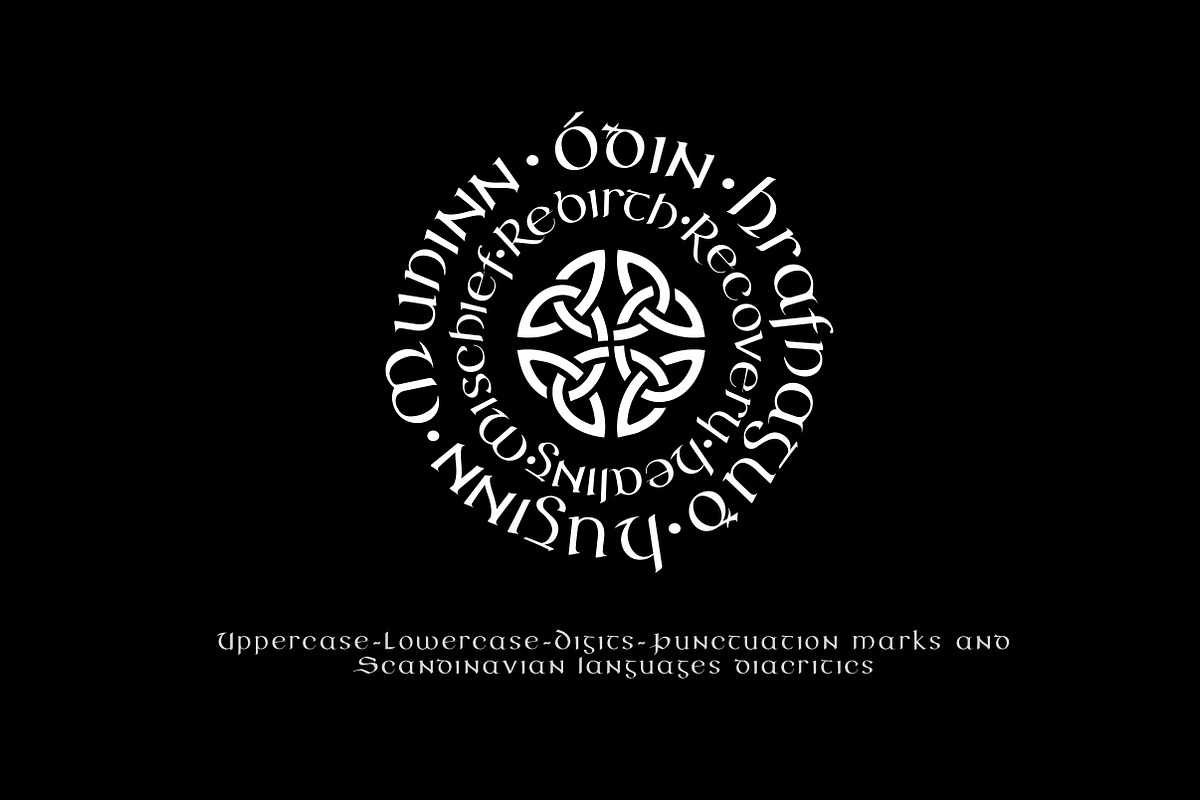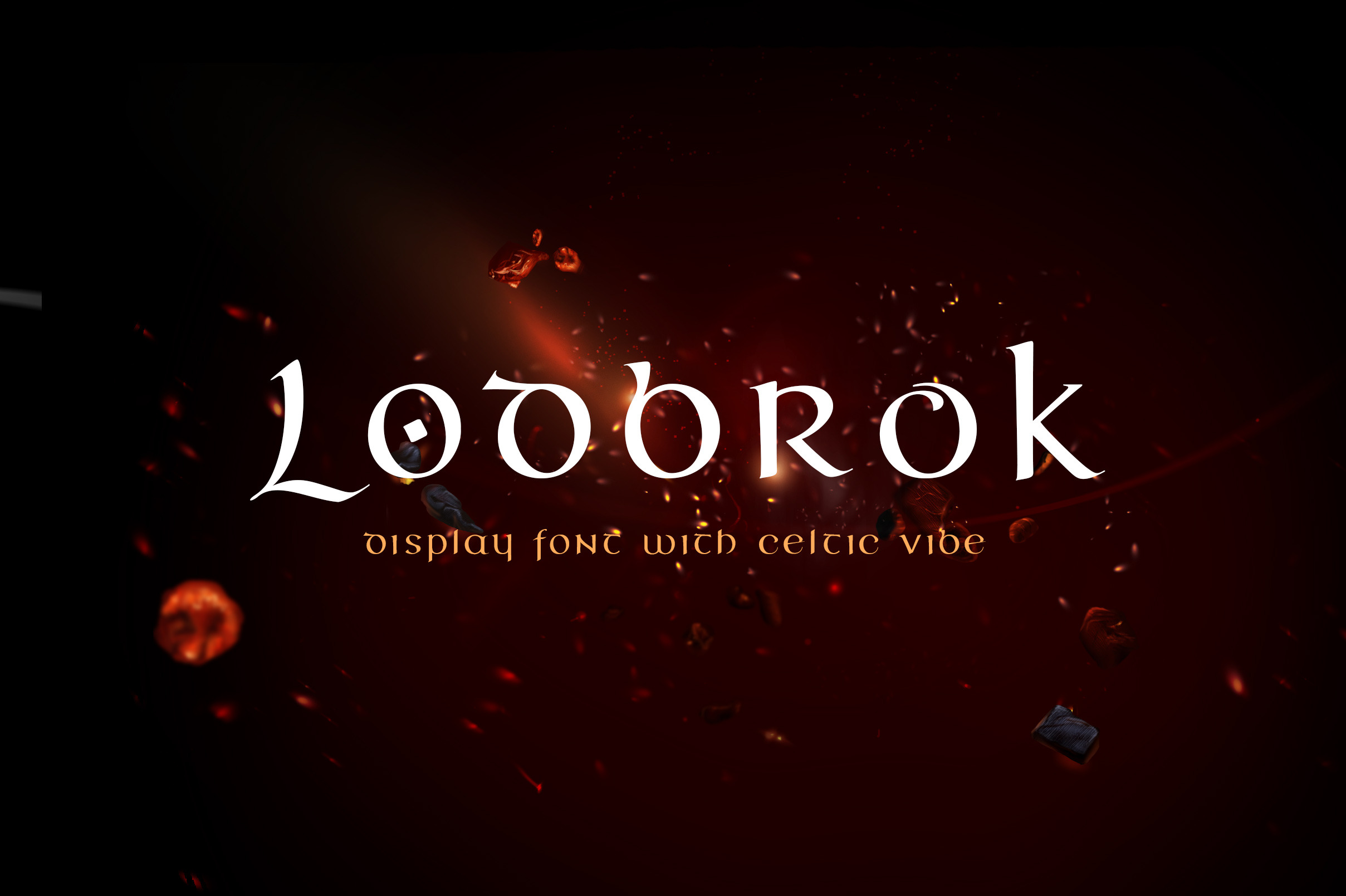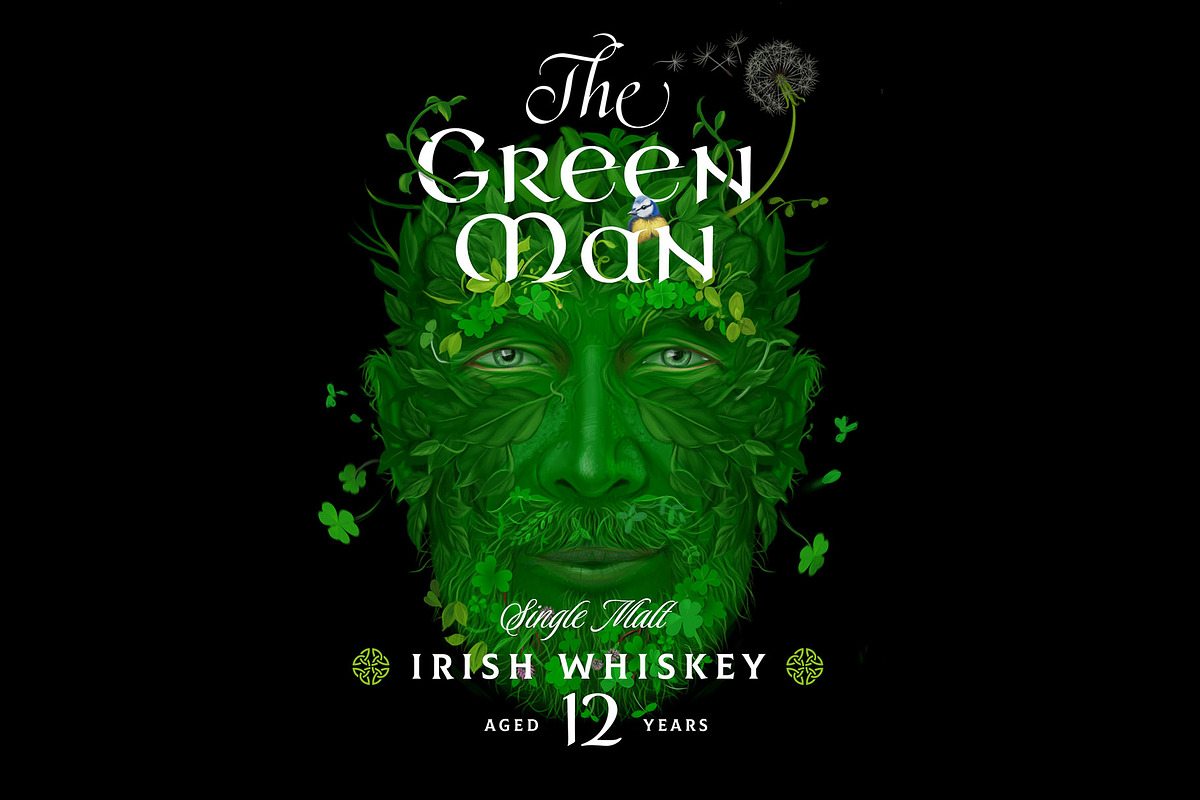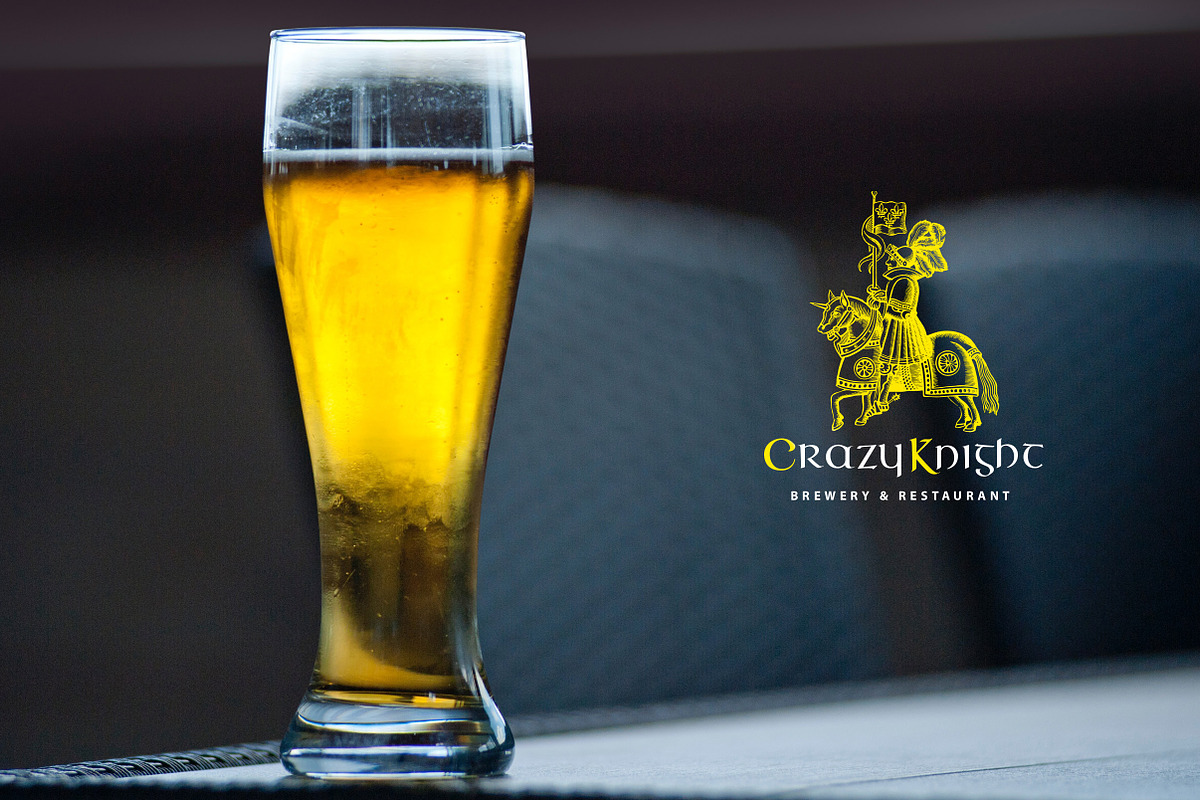
Lodbrok Celtic / Viking Display Font
Calligraphic font inspired by uncial and gothic cursive scripts. Readable yet very Celtic, medieval, Viking kind of look. Good for beer, whiskey, Scotland / Ireland / Norway / Sweden related products, as well as magic or gaming niches. Basic Latin and Scandinavian character sets are supported. There are also alternatives for some letters. Package content: